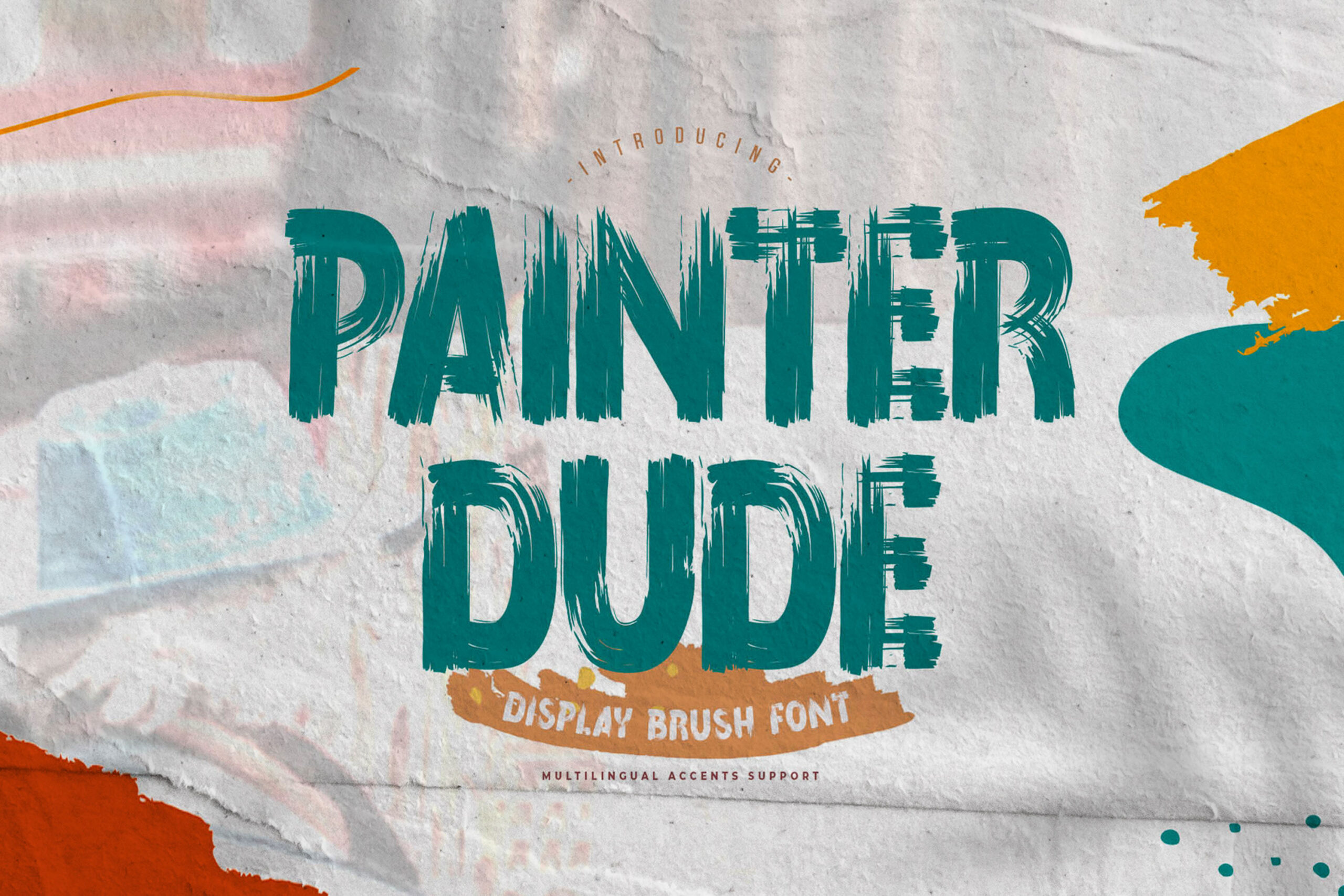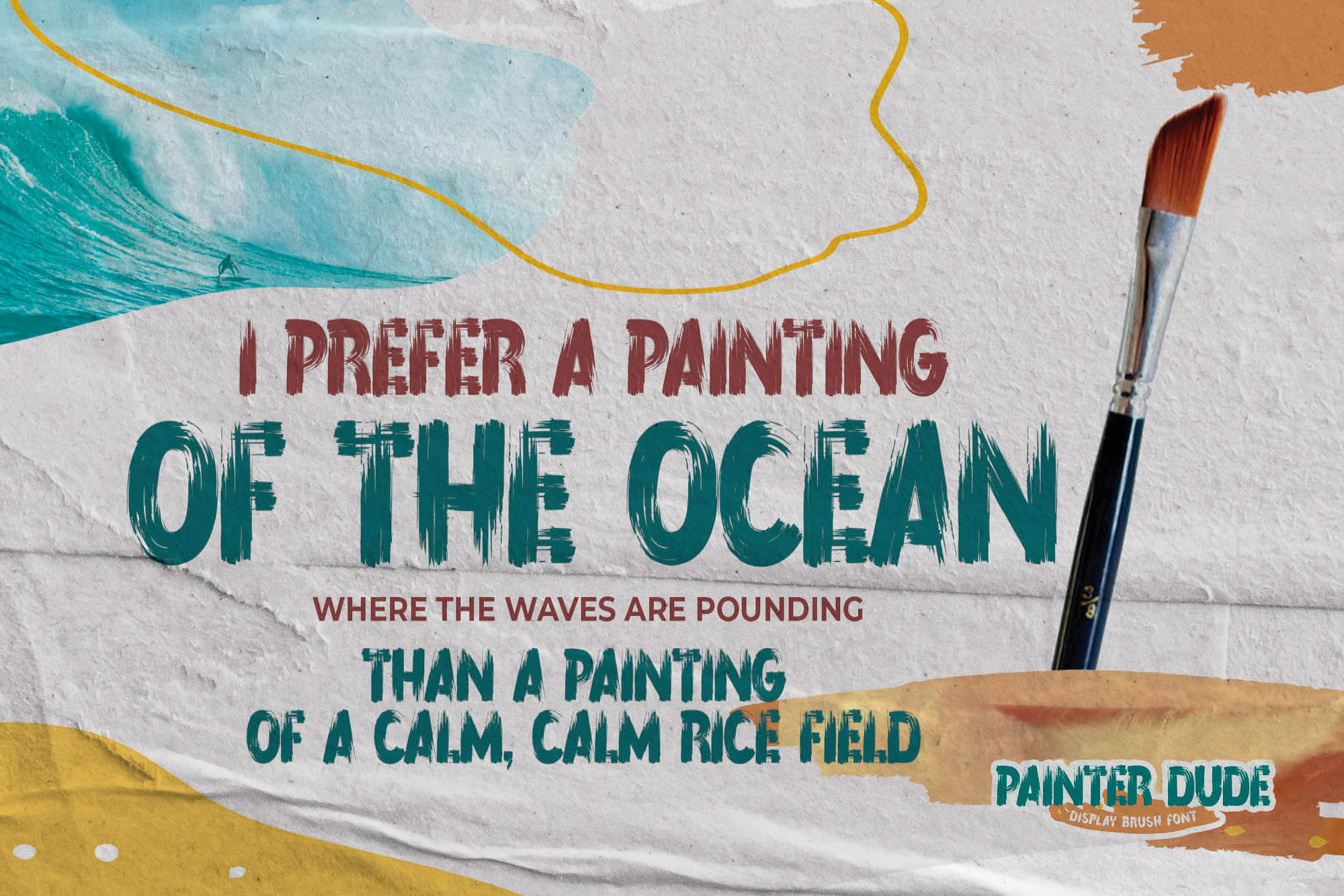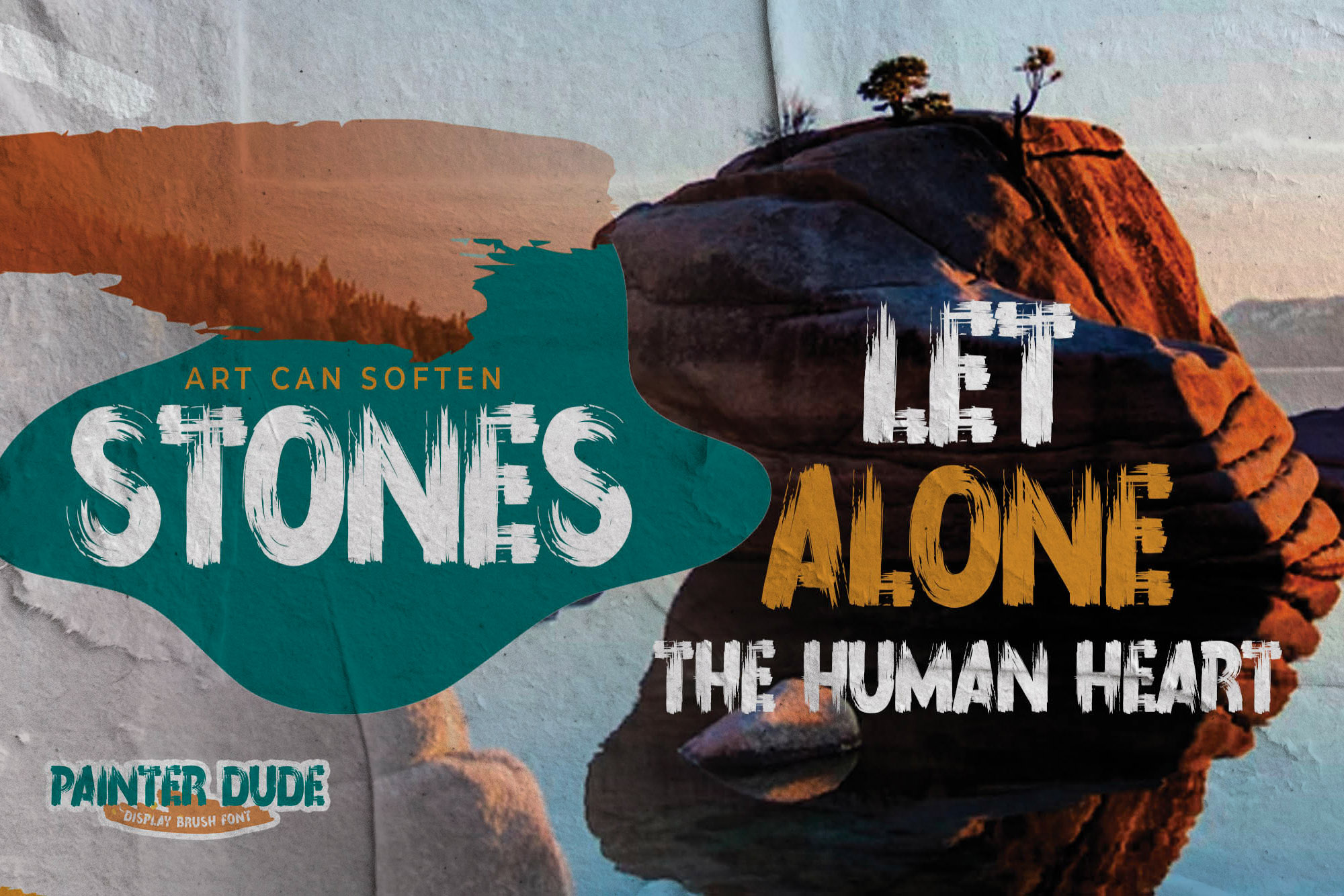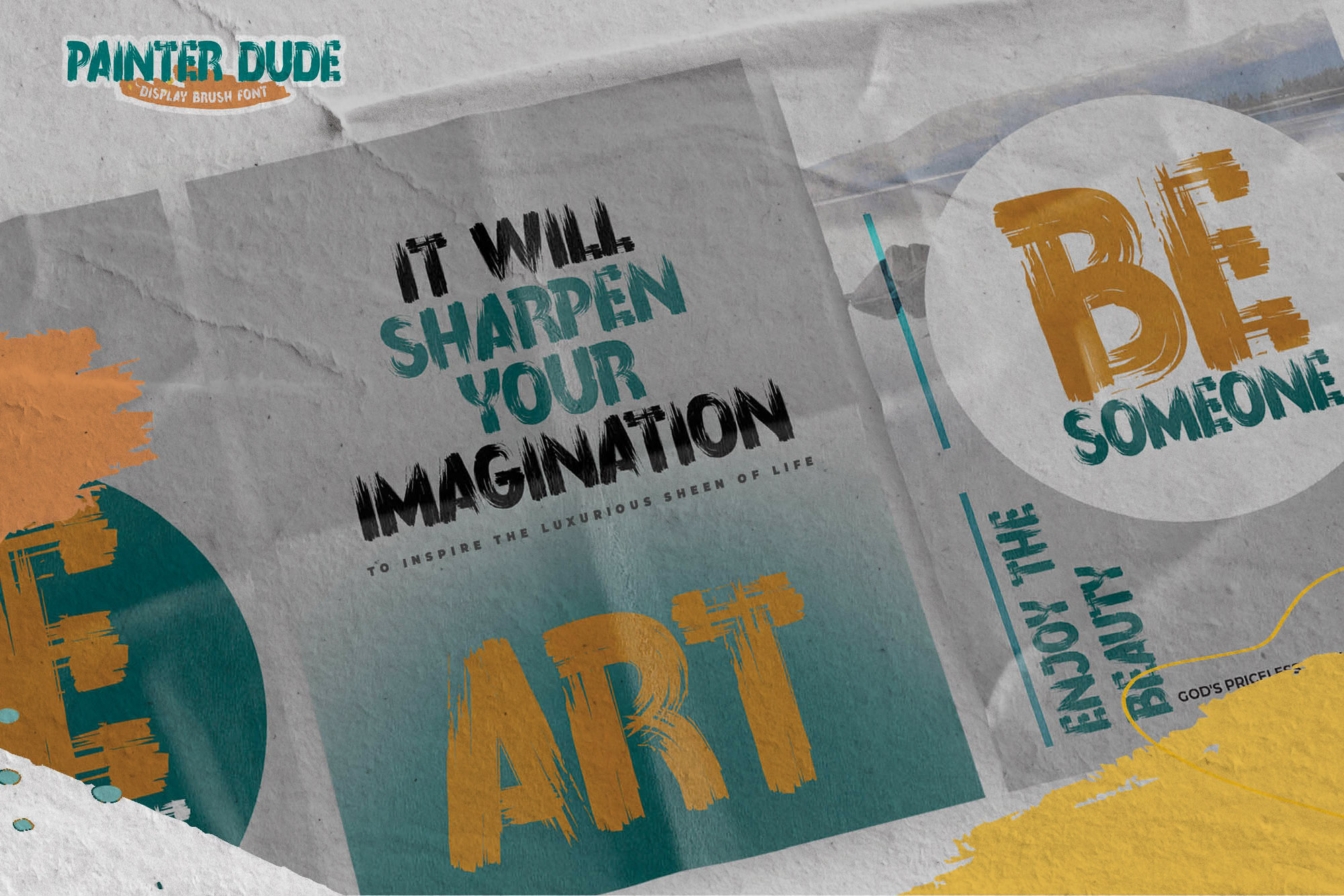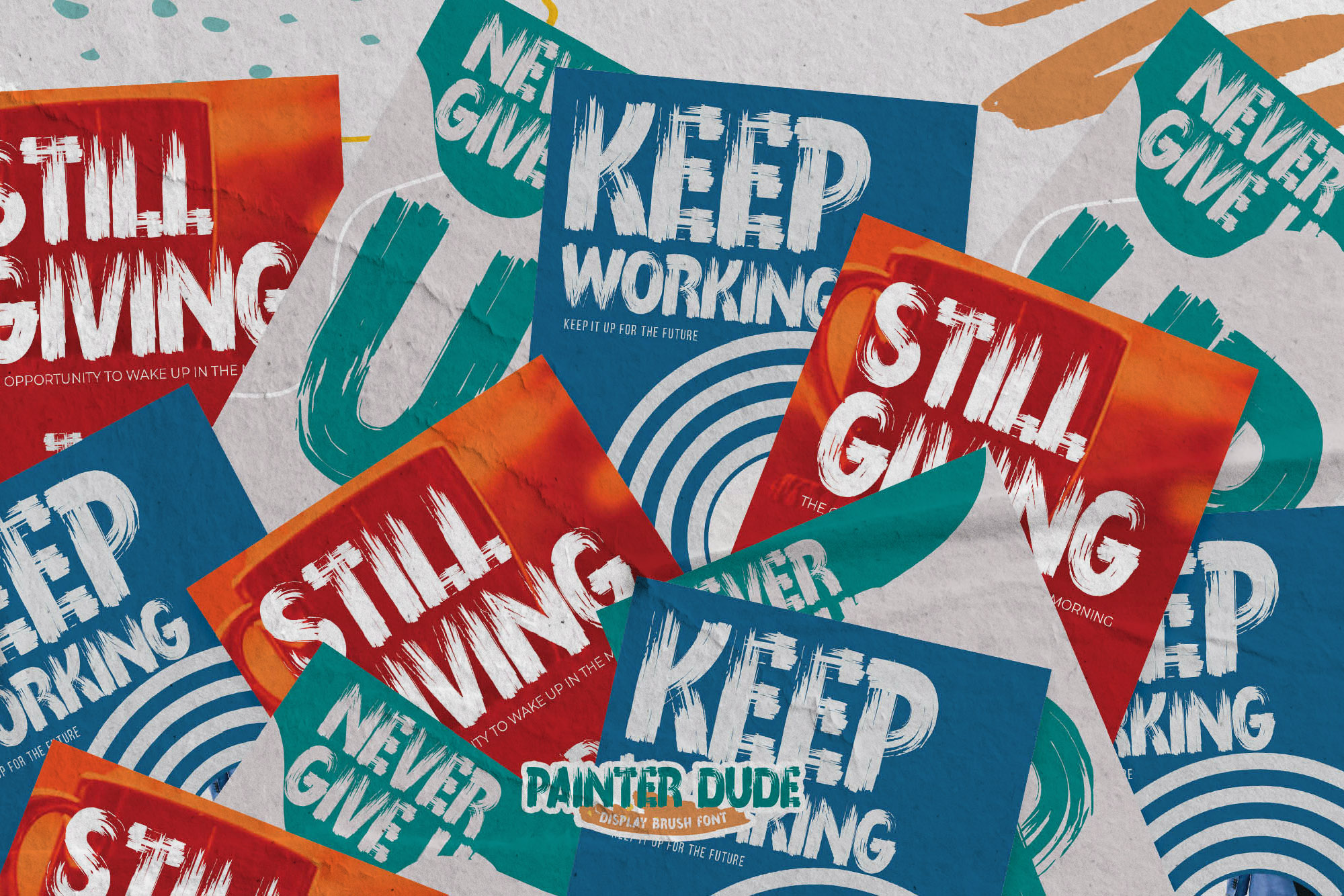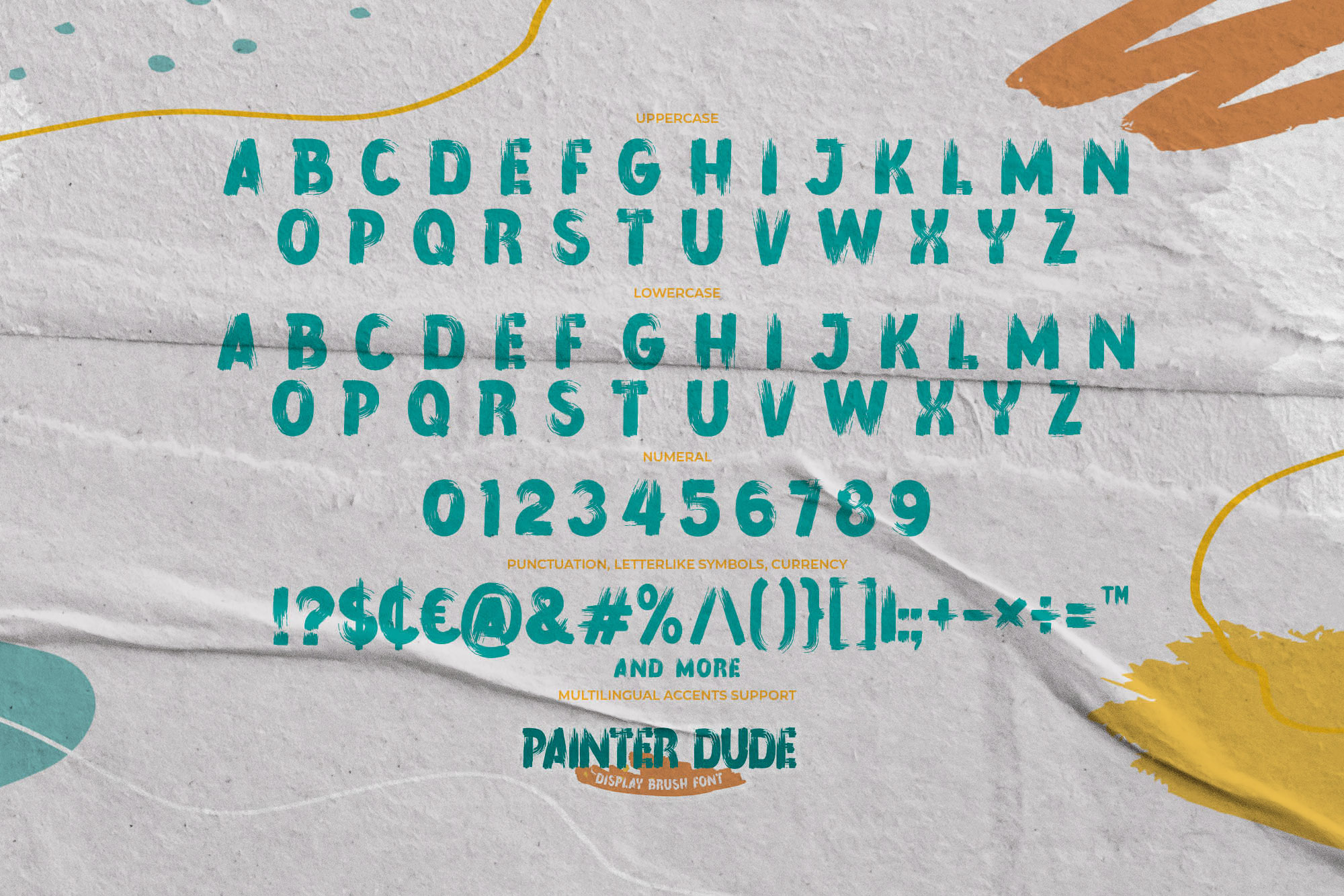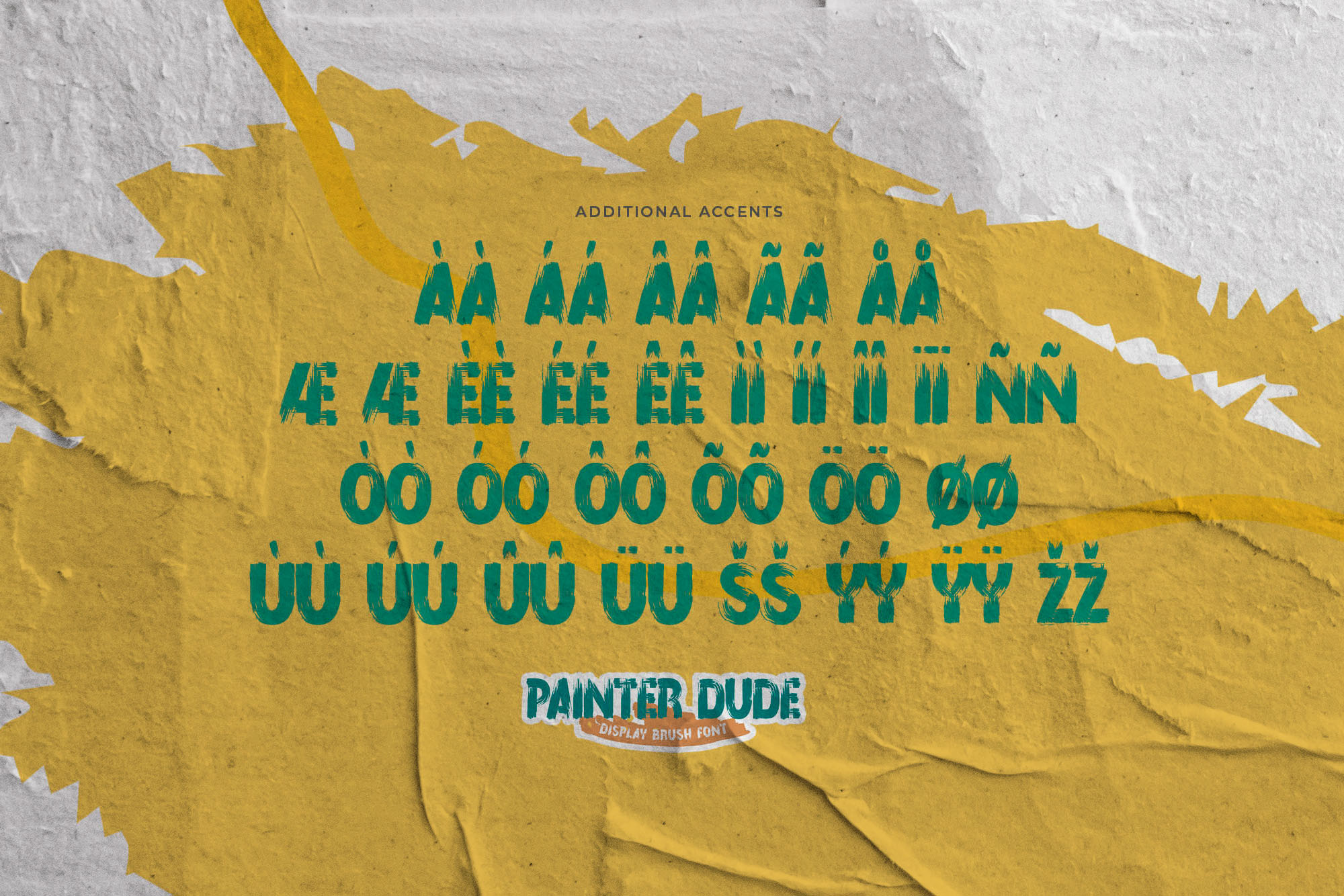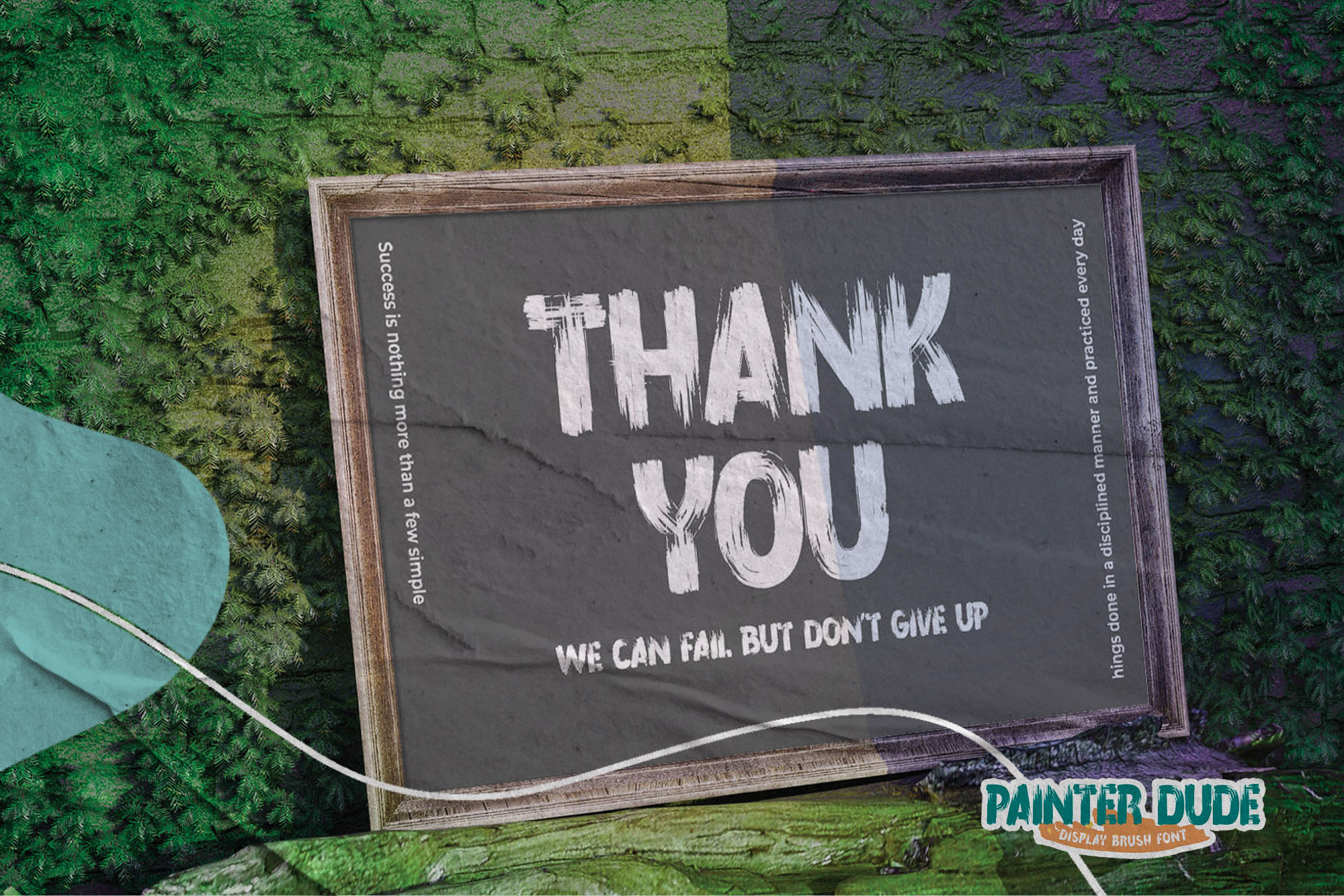
PAINTER DUDE – Display Brush Font , modern style and dramatic movement that is written casually and quickly.
The best for labels,poster,project , designs look modern, rough and unique. It’s perfect for labels, quotes, posters, DIY projects, branding, packaging, greeting cards, websites, photography overlays, signs, scrapbooking, tags and so much more! That is why PAINTER DUDE has a textured, and strong characteristic more natural look.